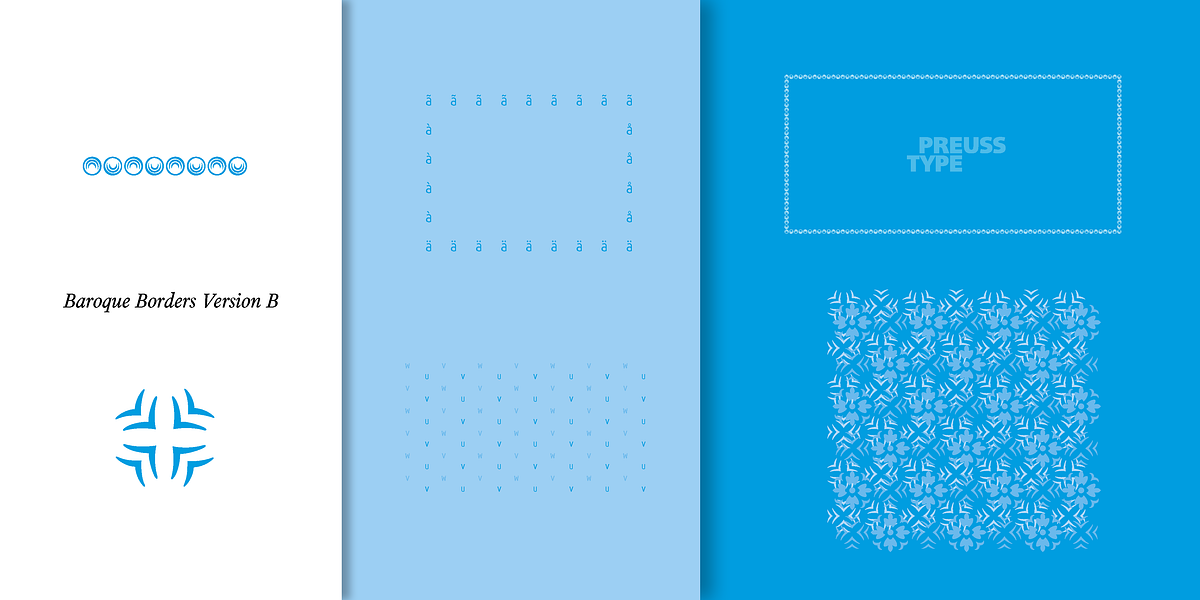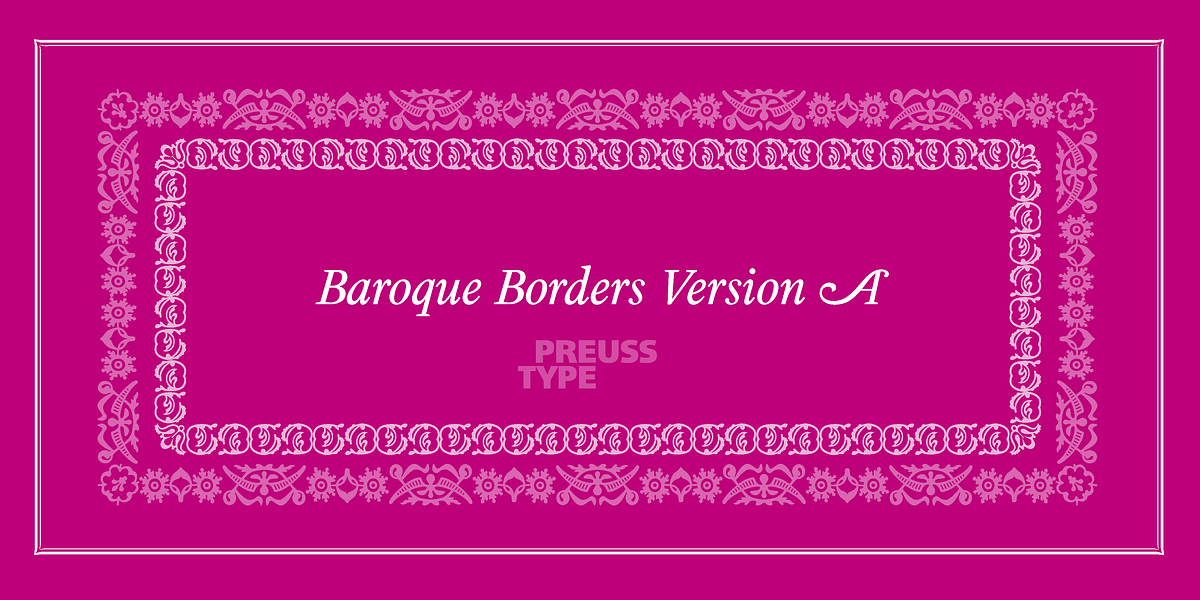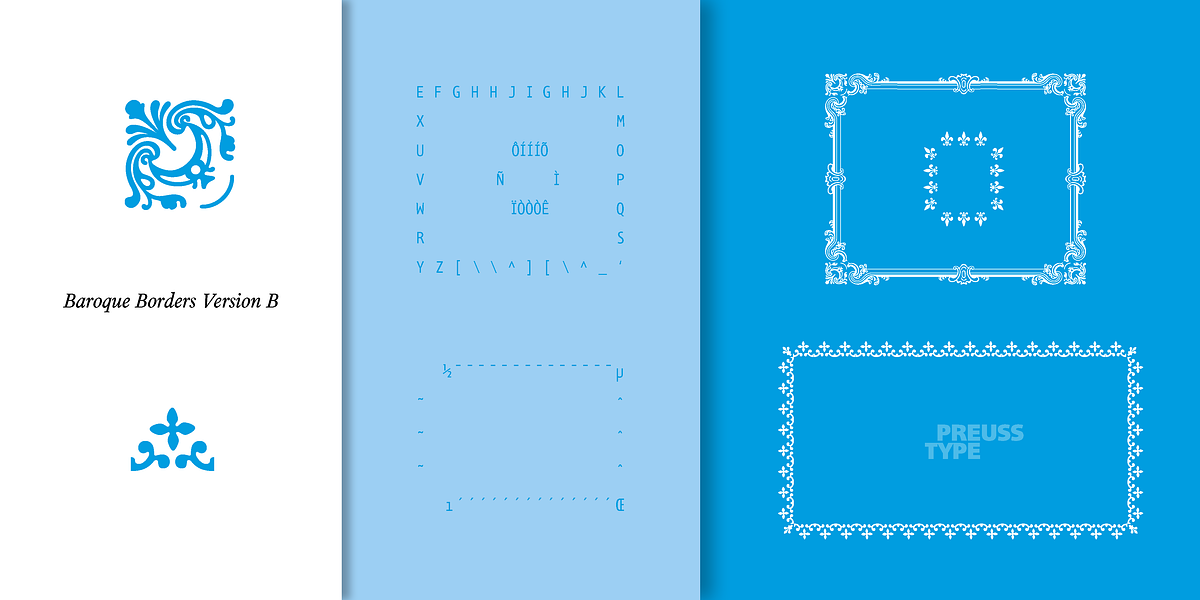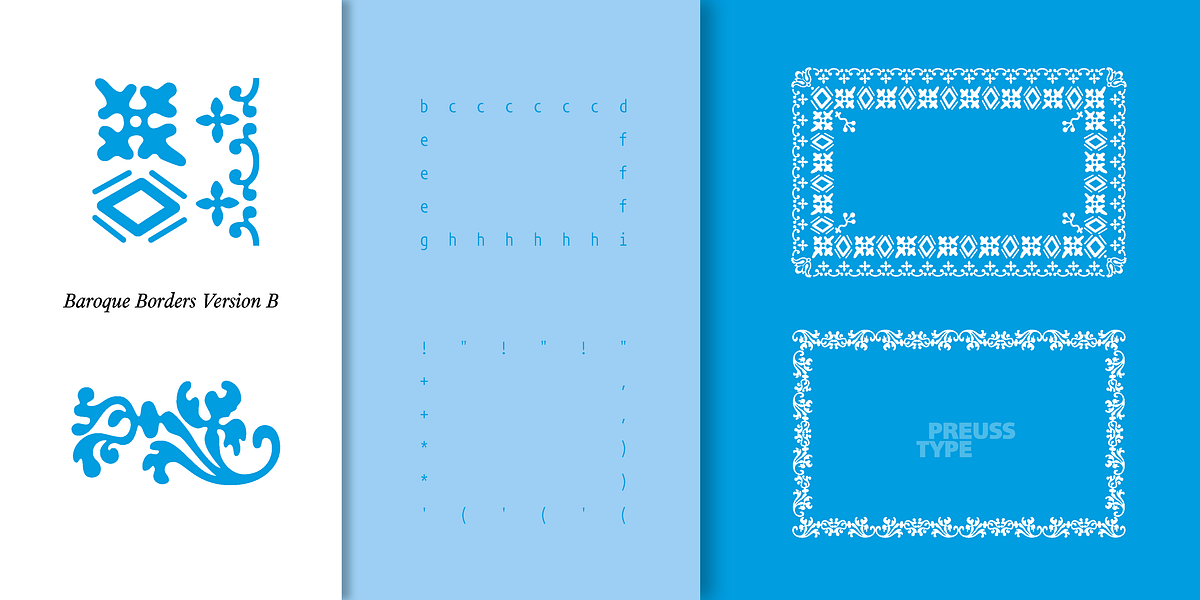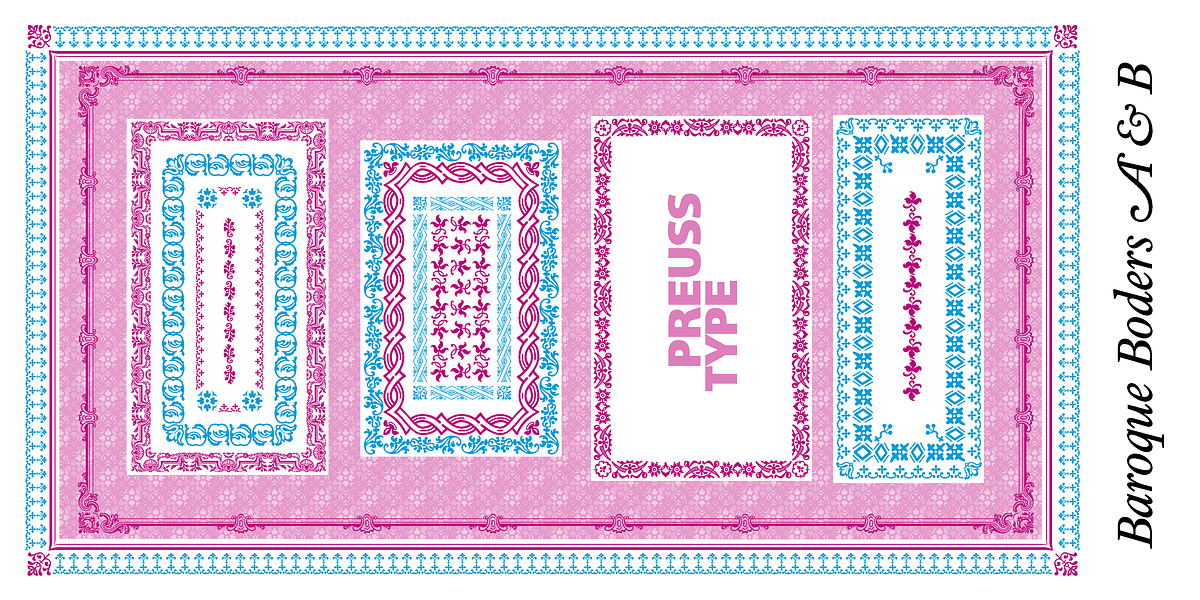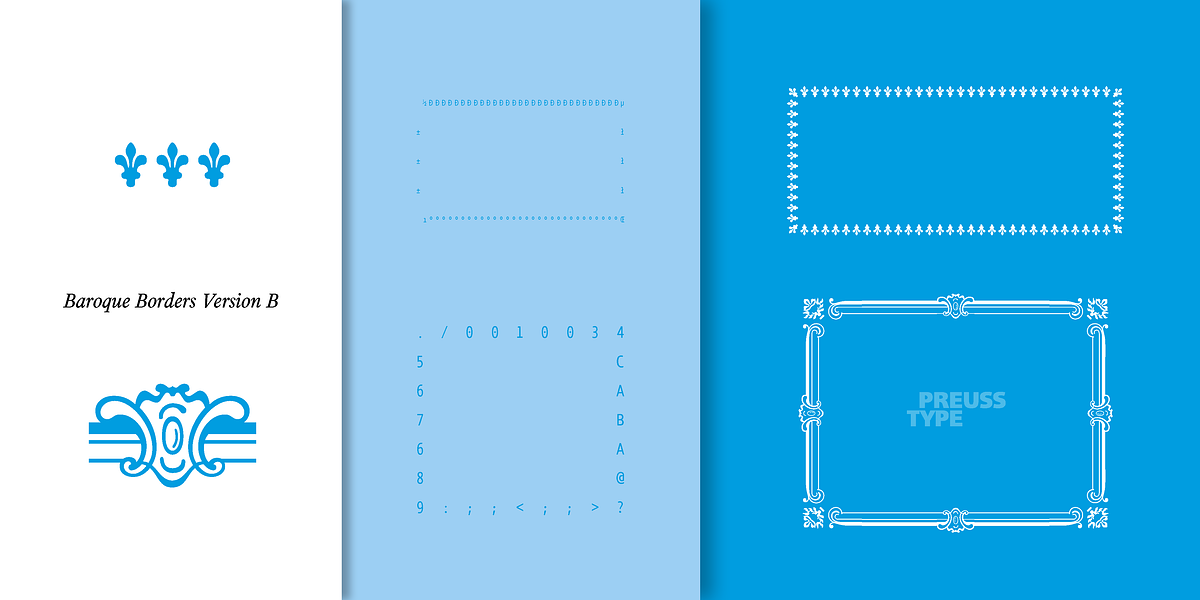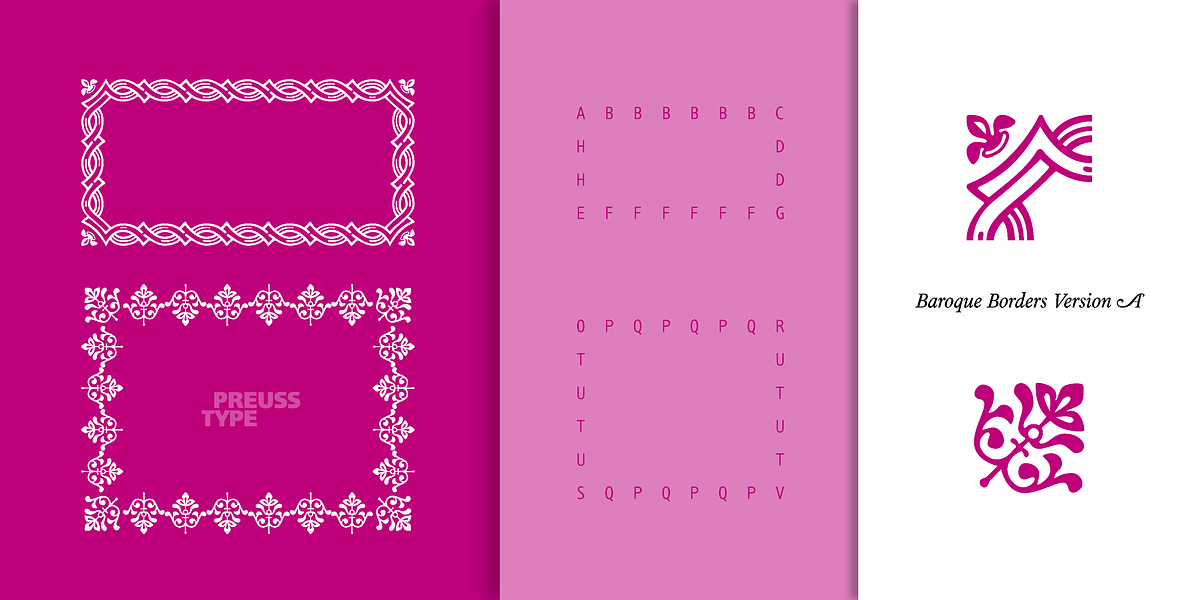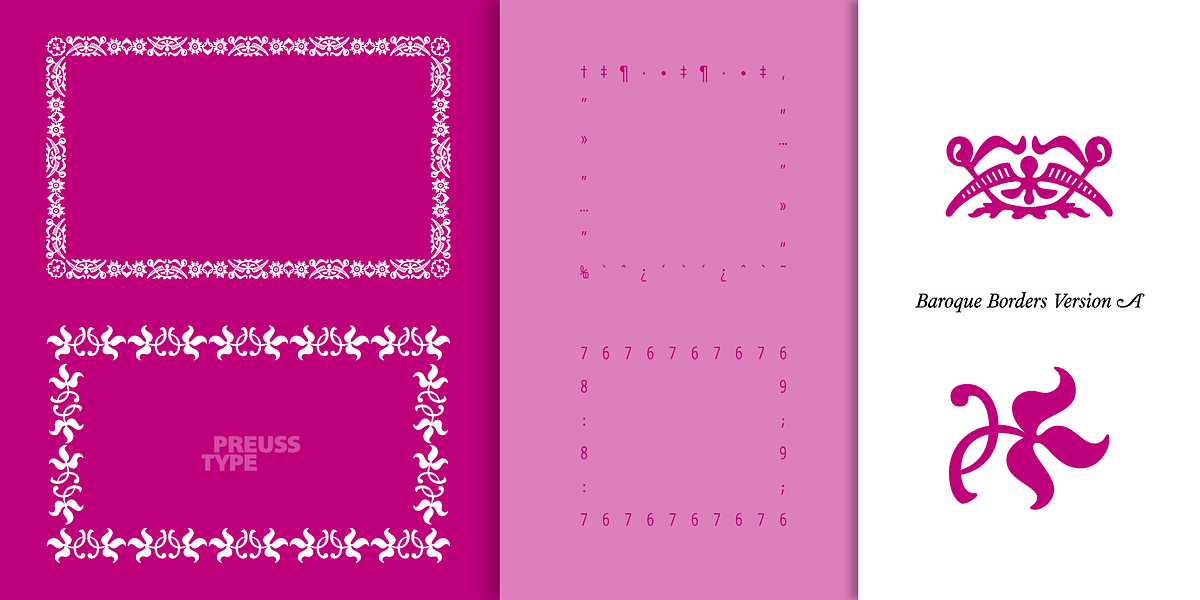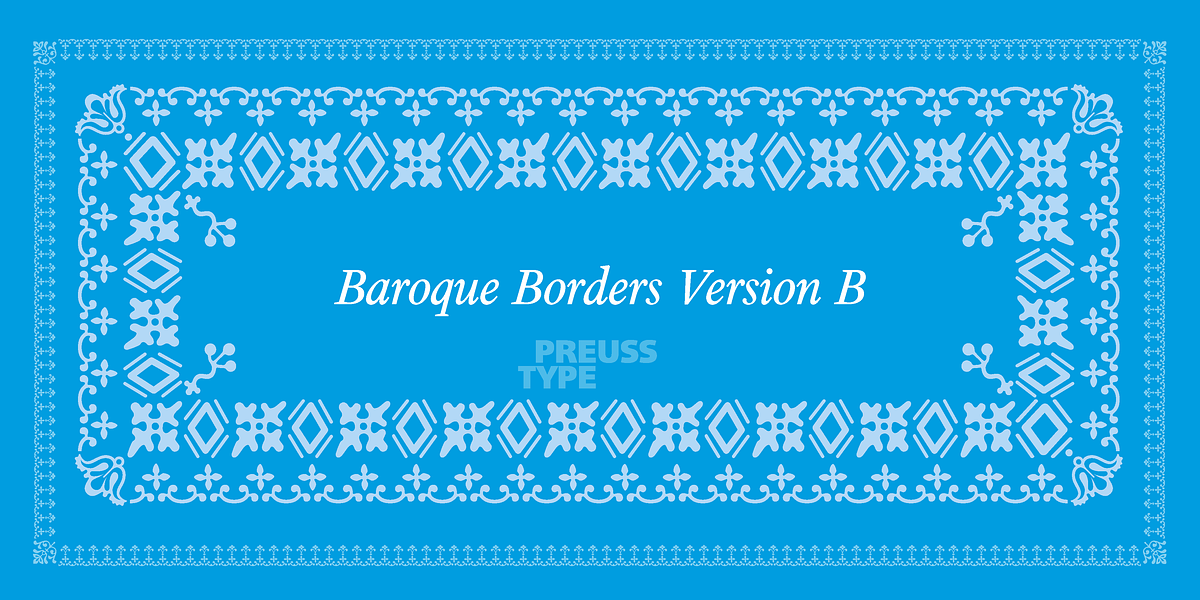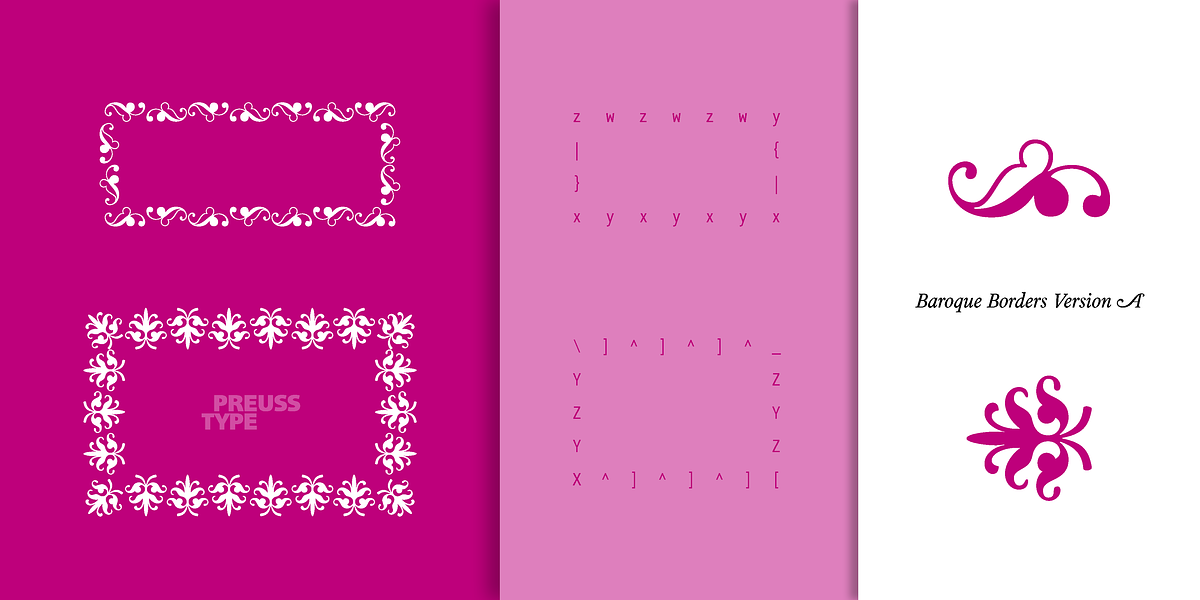
Baroque Borders
Baroque Borders A and B is a dingbat font specifically designed for creating decorative borders and embellishments. Its ornate ornaments are well-suited for projects like greeting cards, wedding invitations, and certificates where a touch of historical elegance is desired.